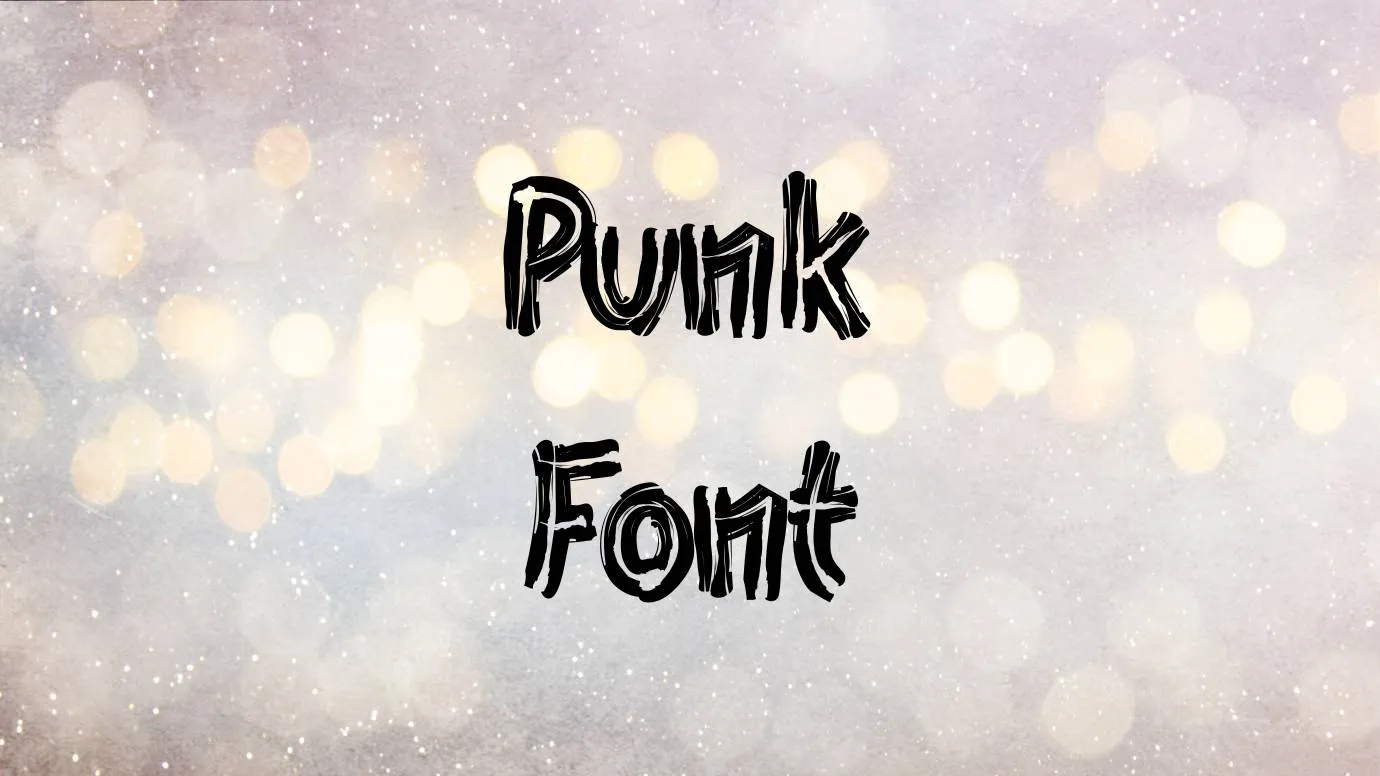
Punk Font Family comes in the brush font family. This font family was designed by Gaut Fonts. It comes with more than 65 characters including the uppercase alphabet, general punctuations, numbers, and specially modified letters.